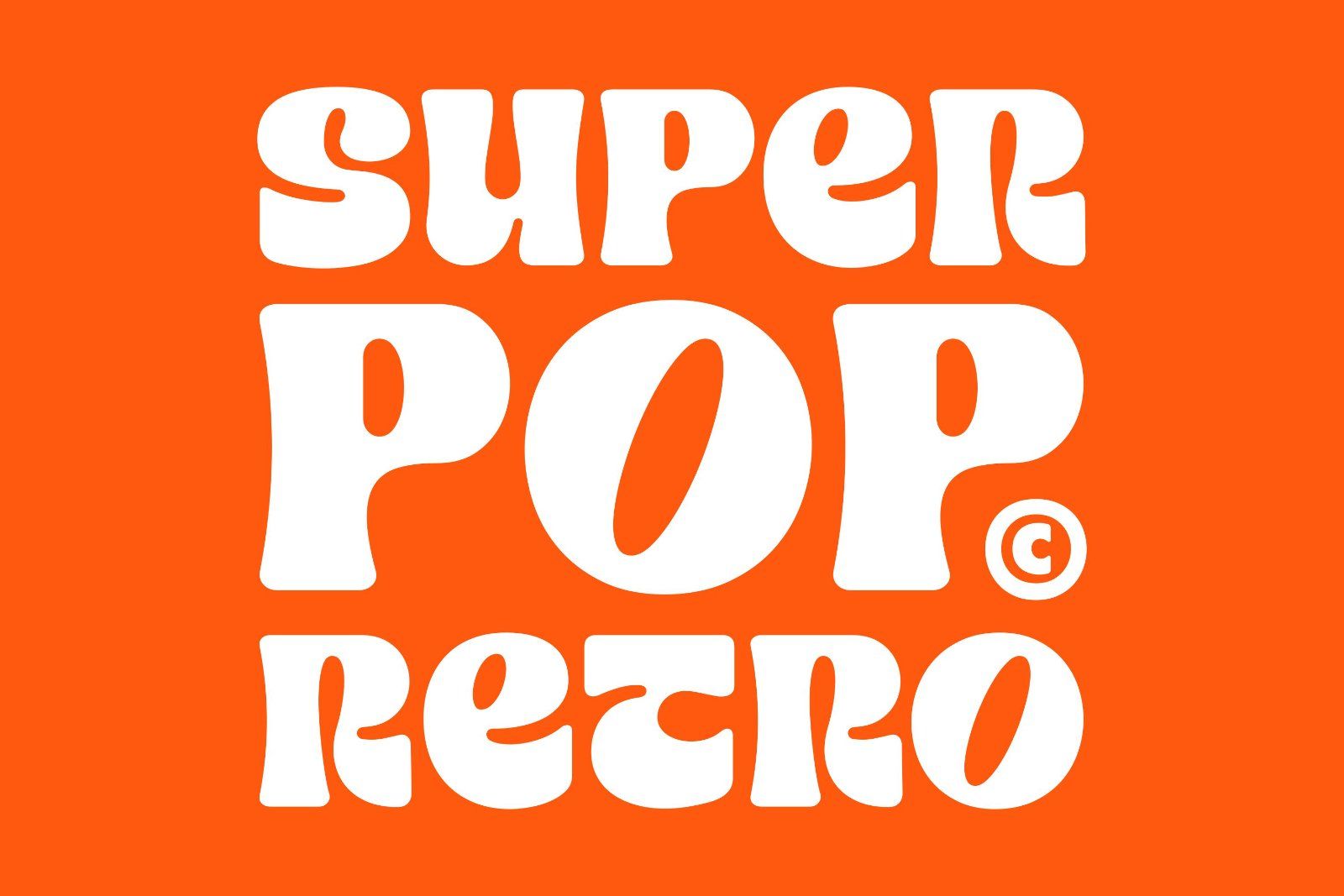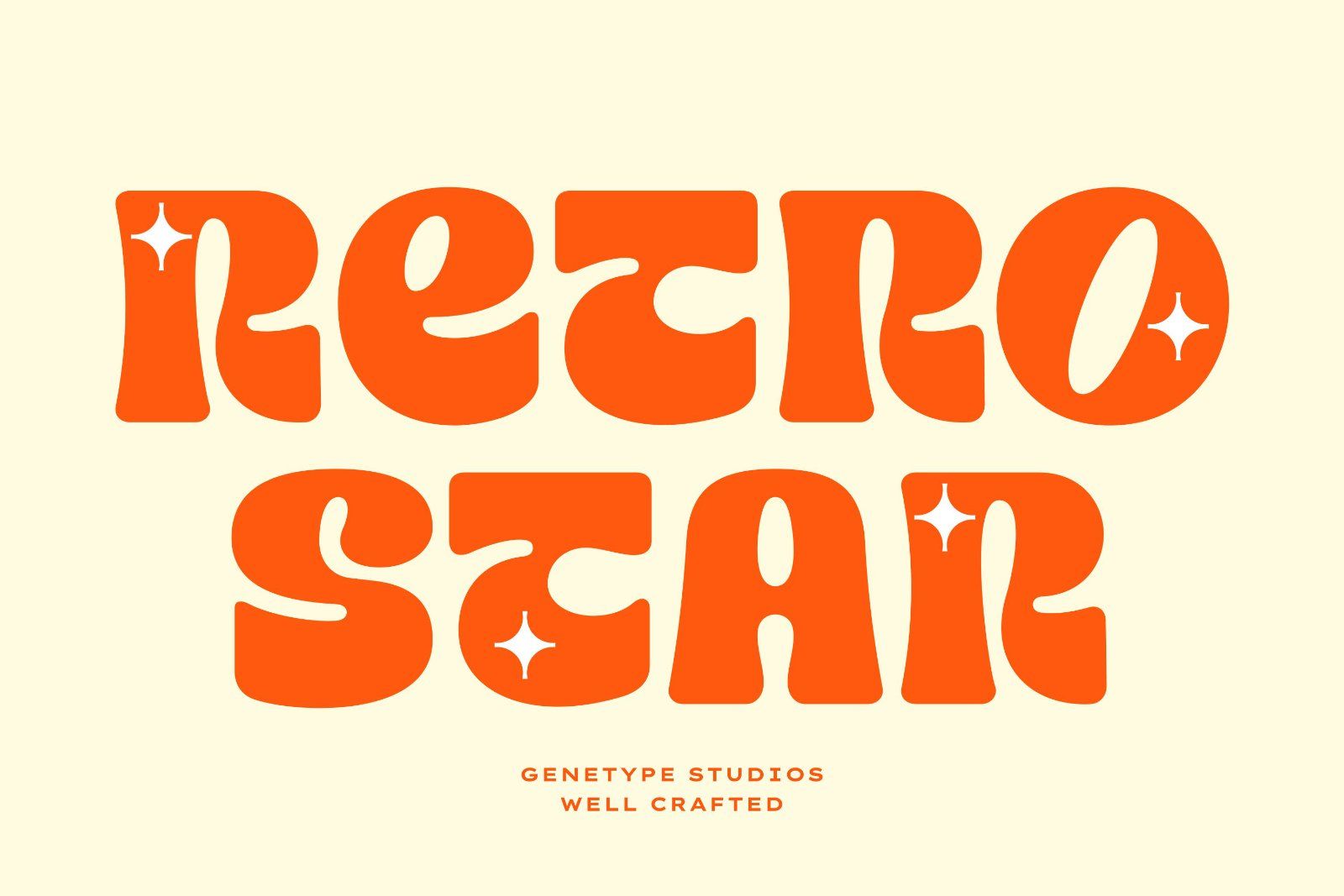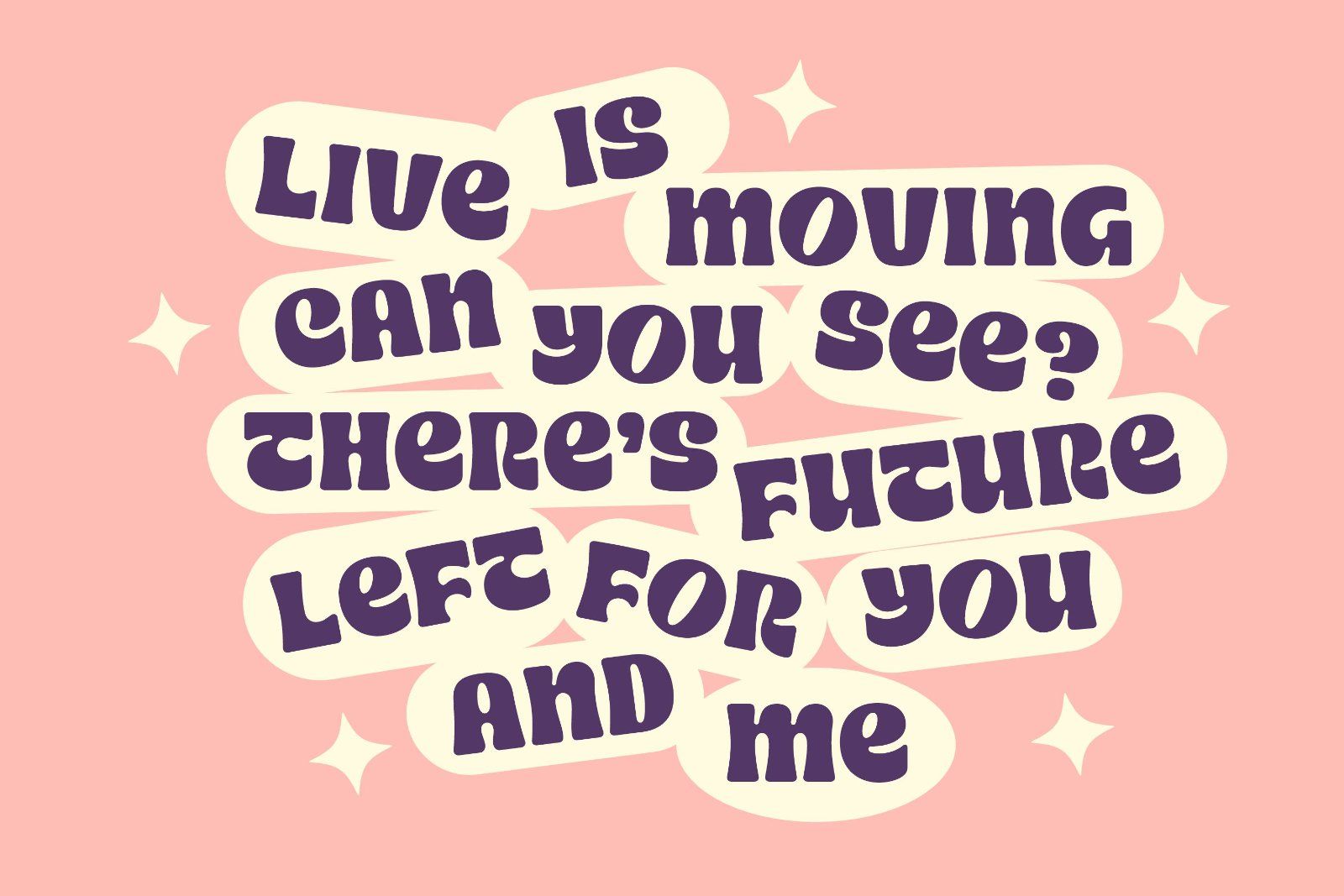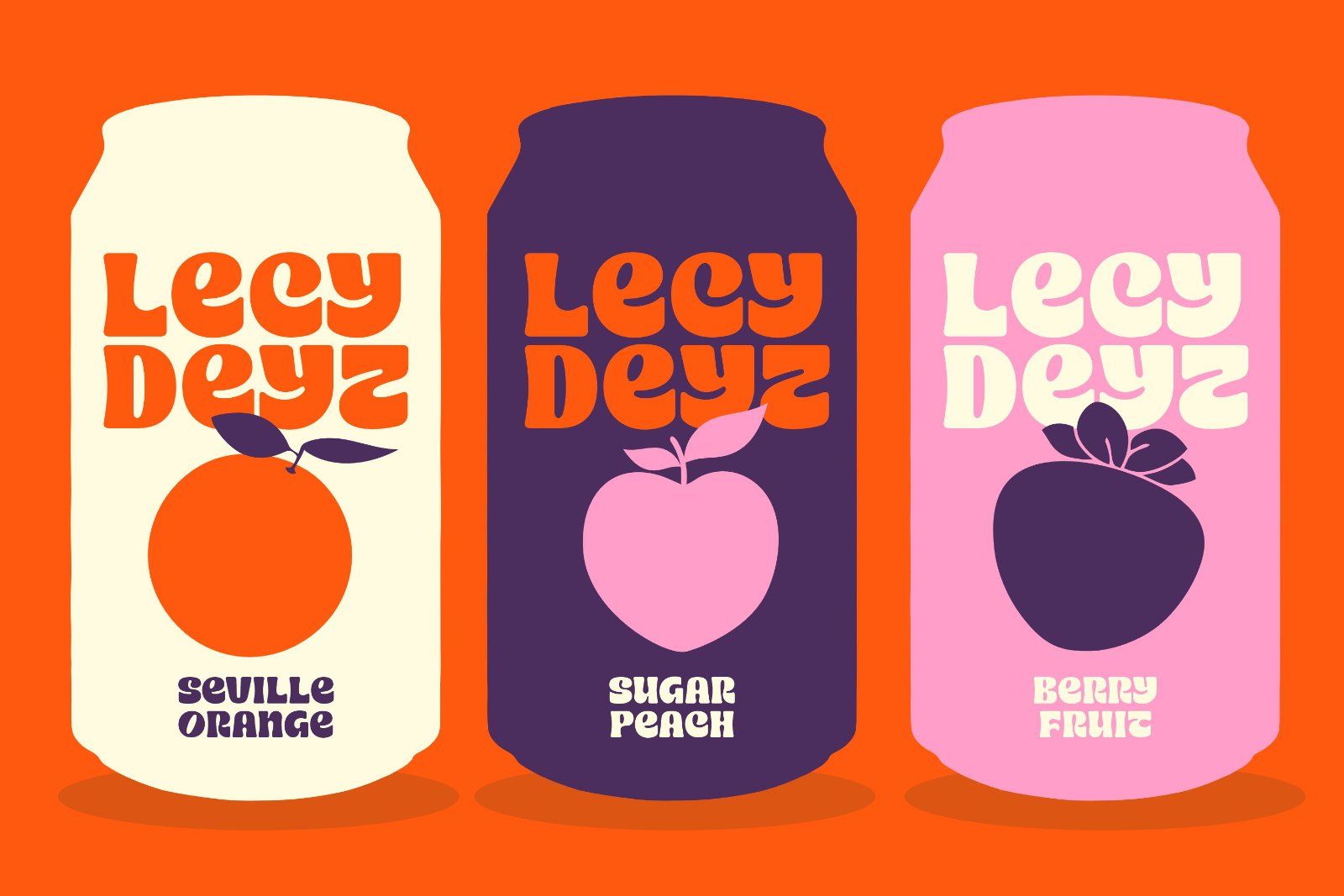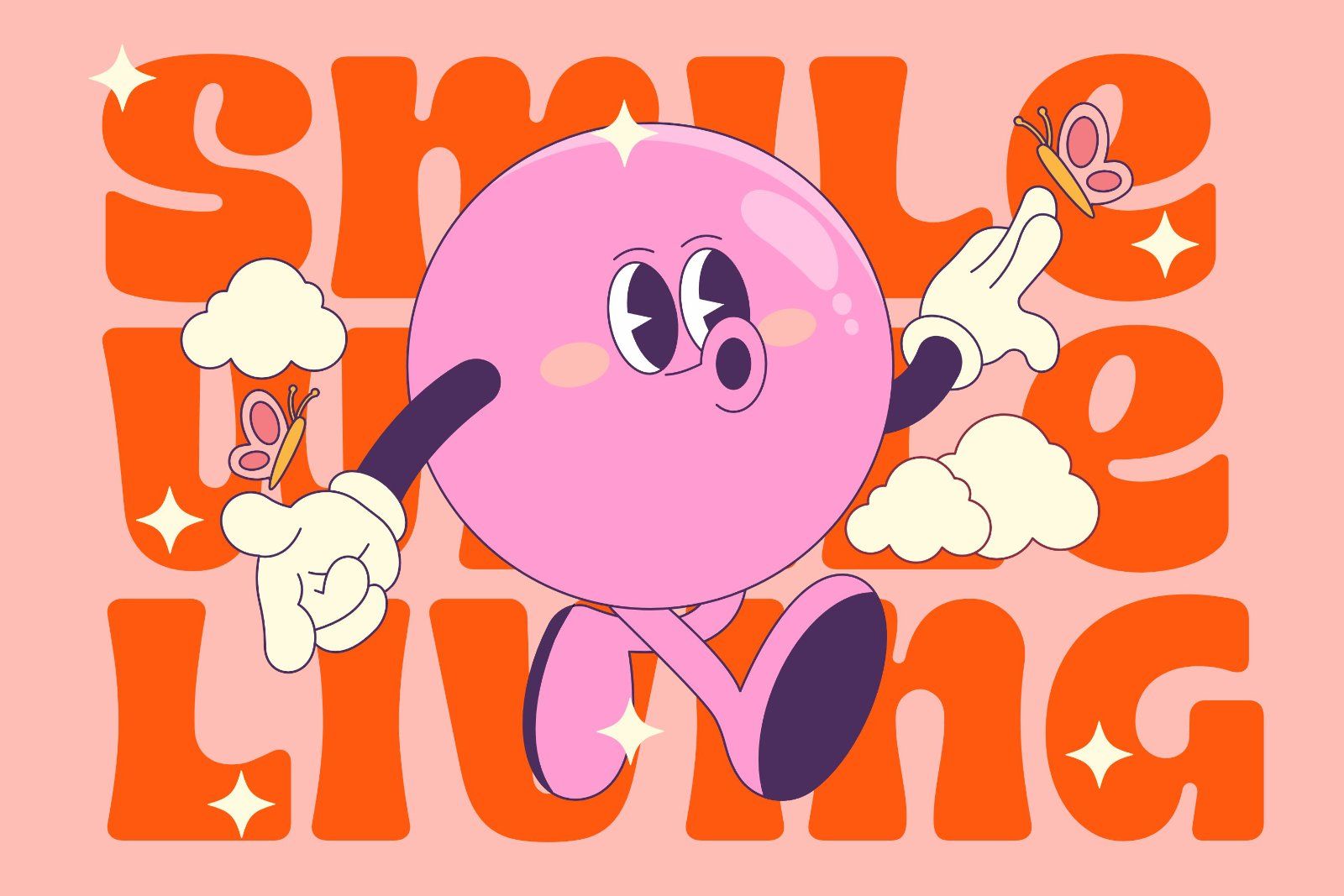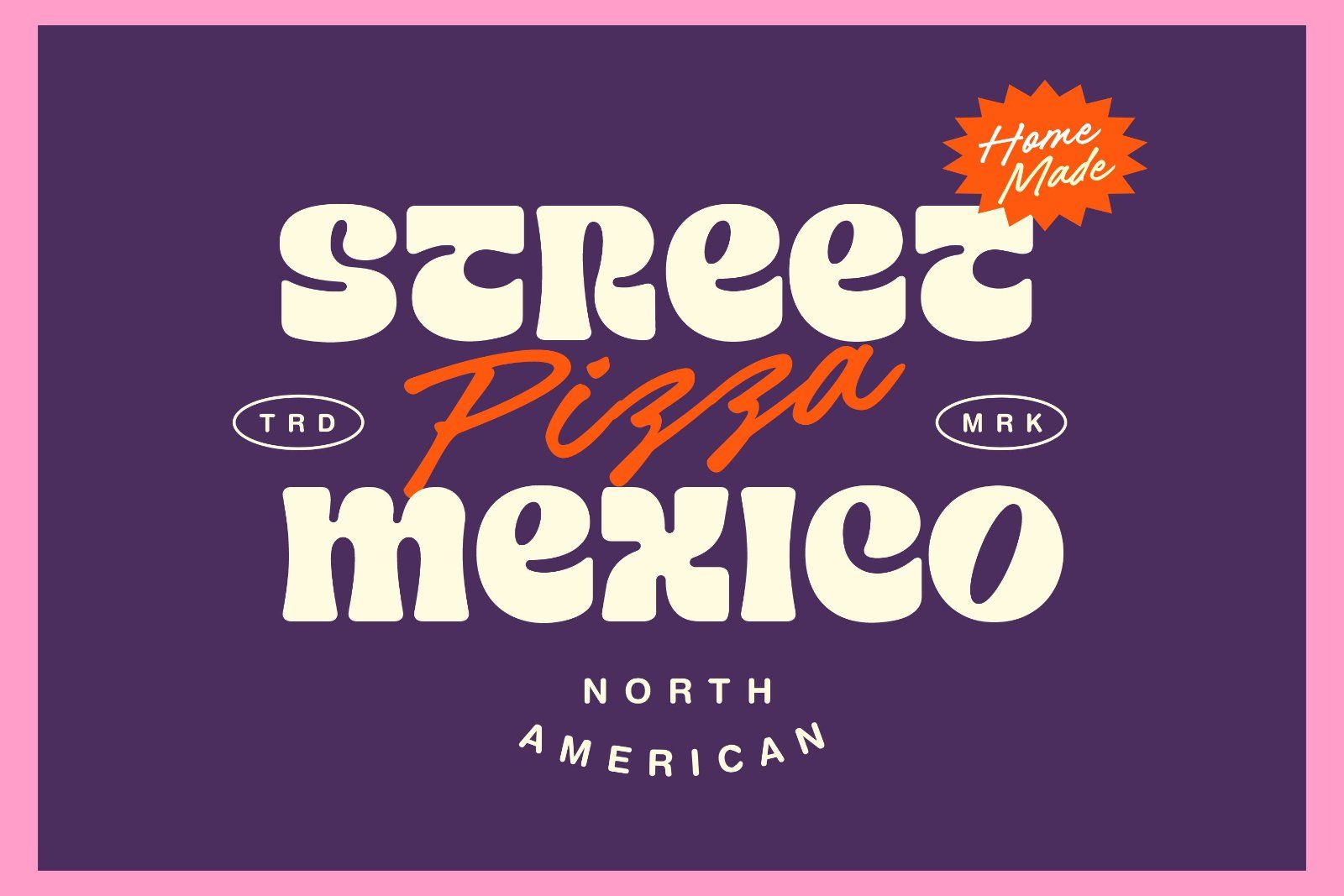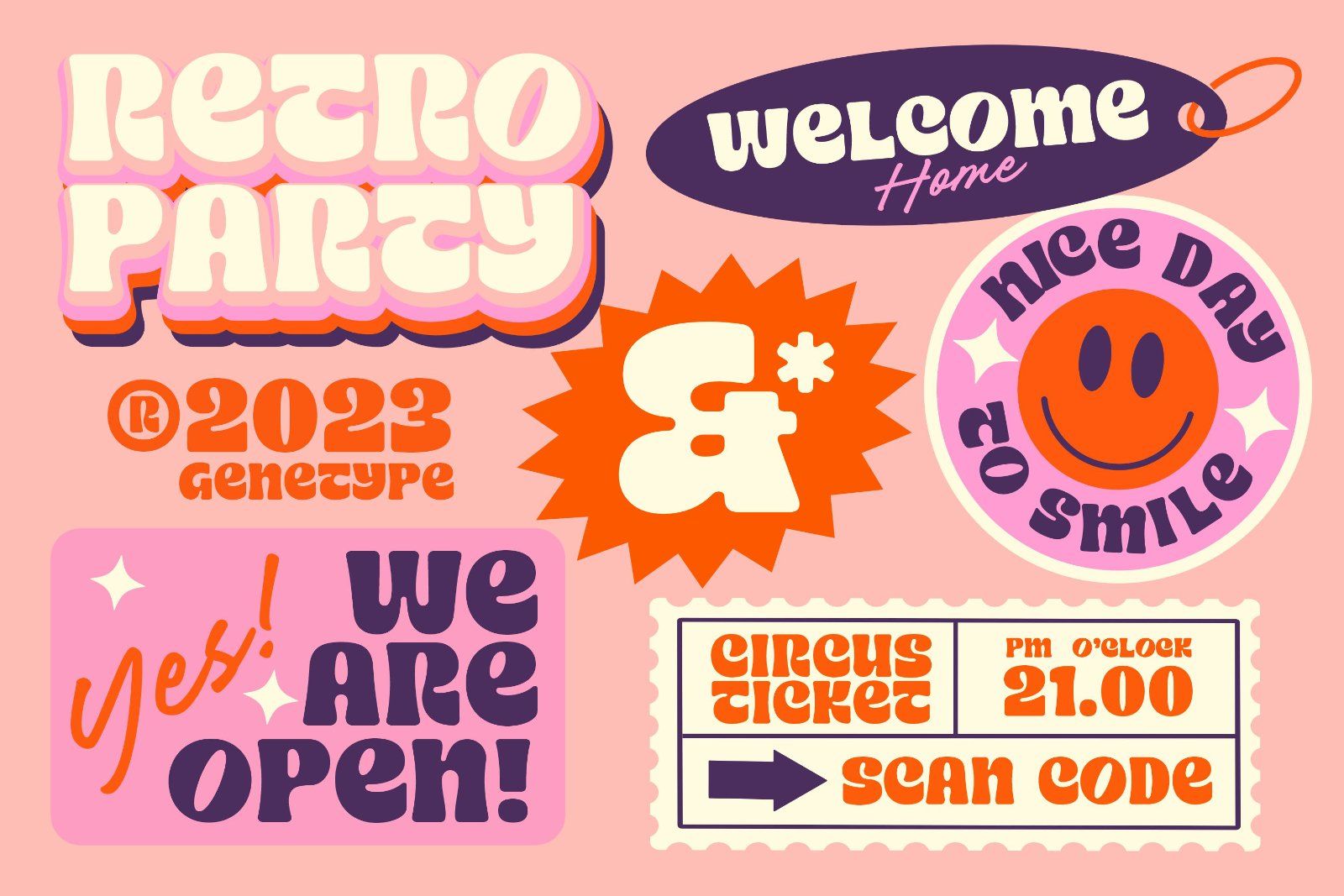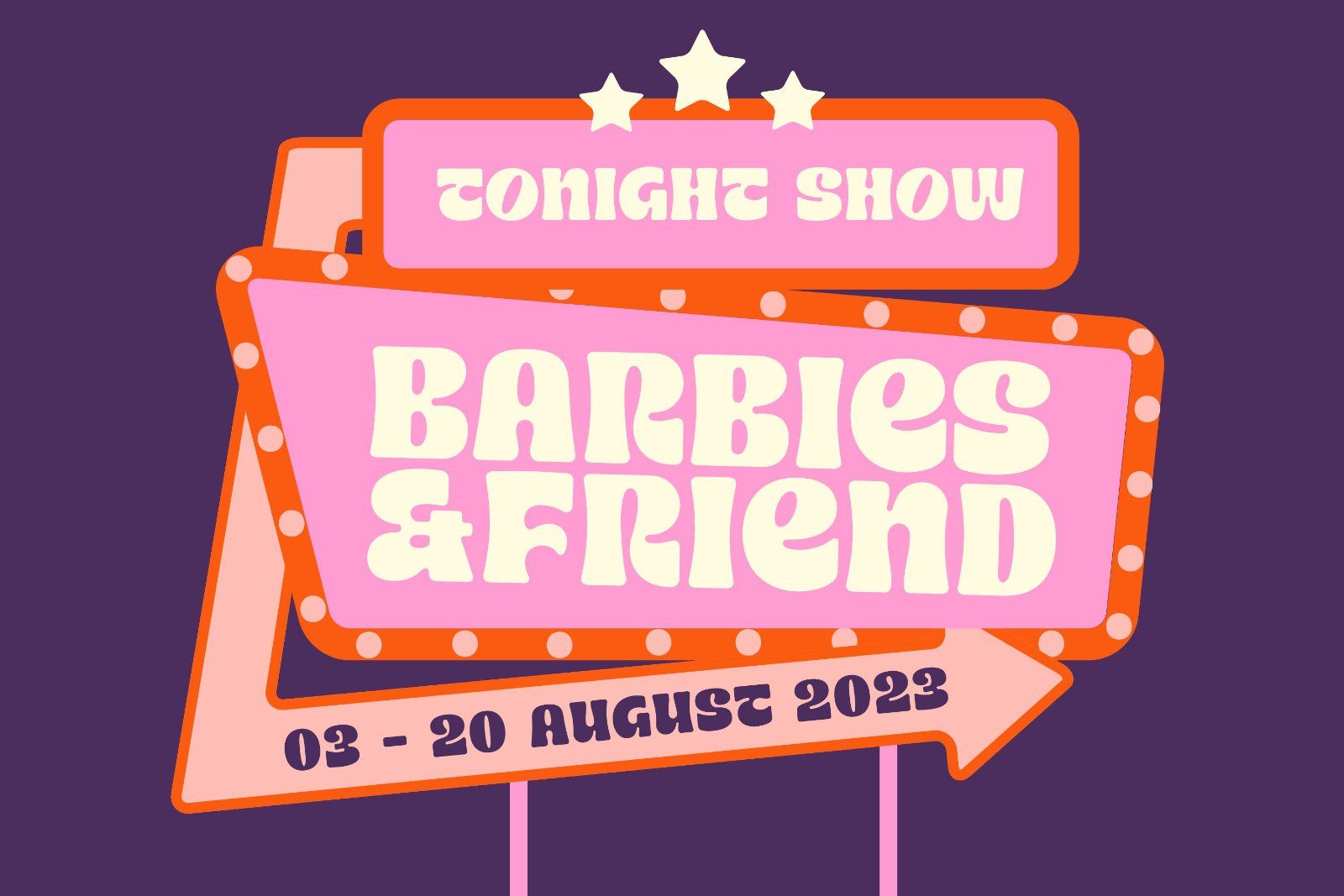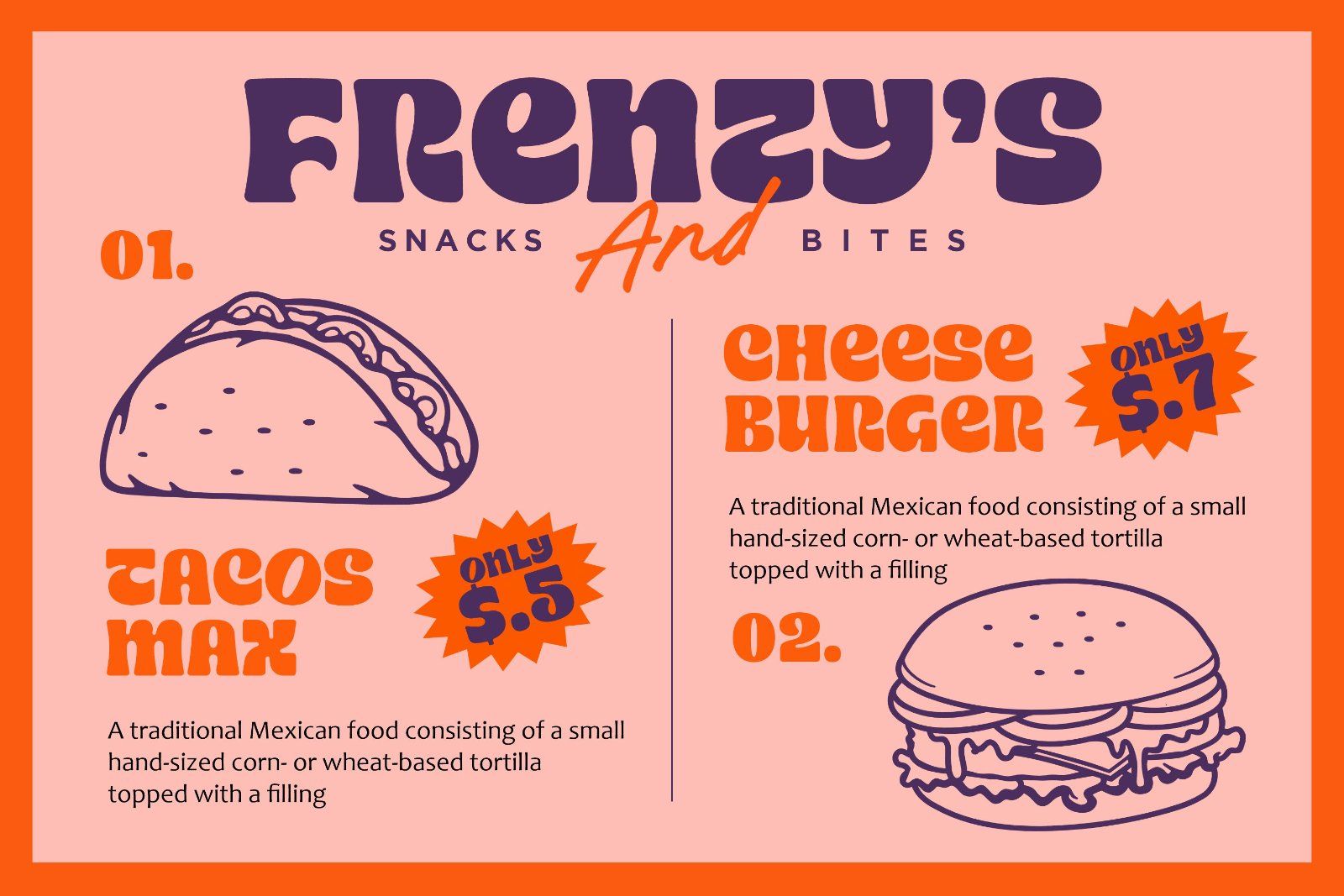
Introducing Retro Star Typeface: Unleash Nostalgia in Every Letter!
Step into a time capsule with Retro Star, our latest vintage-themed font that oozes old-world charm. Radiating a sense of nostalgia, this typeface takes you back to the elegance pop from days gone by. Retro Star lends an air of authenticity to your designs. From poster to brand logos, this typeface is your ticket to timeless creativity. Embrace the past and craft designs that resonate with the soul of yesteryears – discover Retro Star today!